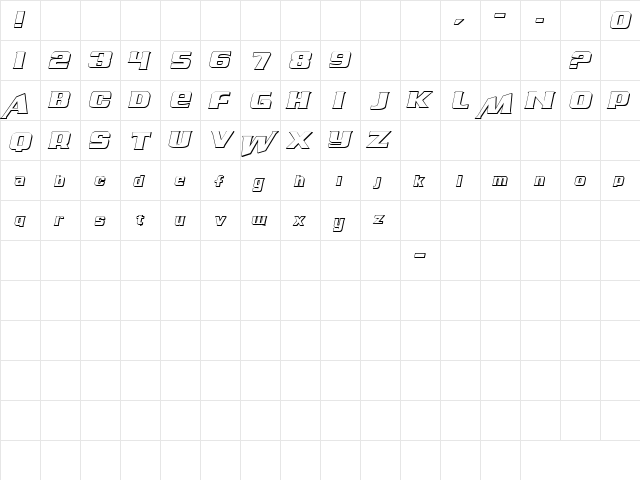
Air Millhouse Outline
| Designer | Dennis Ludlow |
Design Context for Air Millhouse Outline Typeface
Air Millhouse Outline brings ornamental detail and strong personality to headlines and identities, where visual impact matters more than quiet functionality.
Font Pairing: Pair with a clean neutral sans-serif for body copy to let Air Millhouse Outline's character lead without overwhelming the composition.
Pro Tip: Use Air Millhouse Outline exclusively at display sizes — it was designed to be seen, not read at length. Let a neutral companion handle body copy.